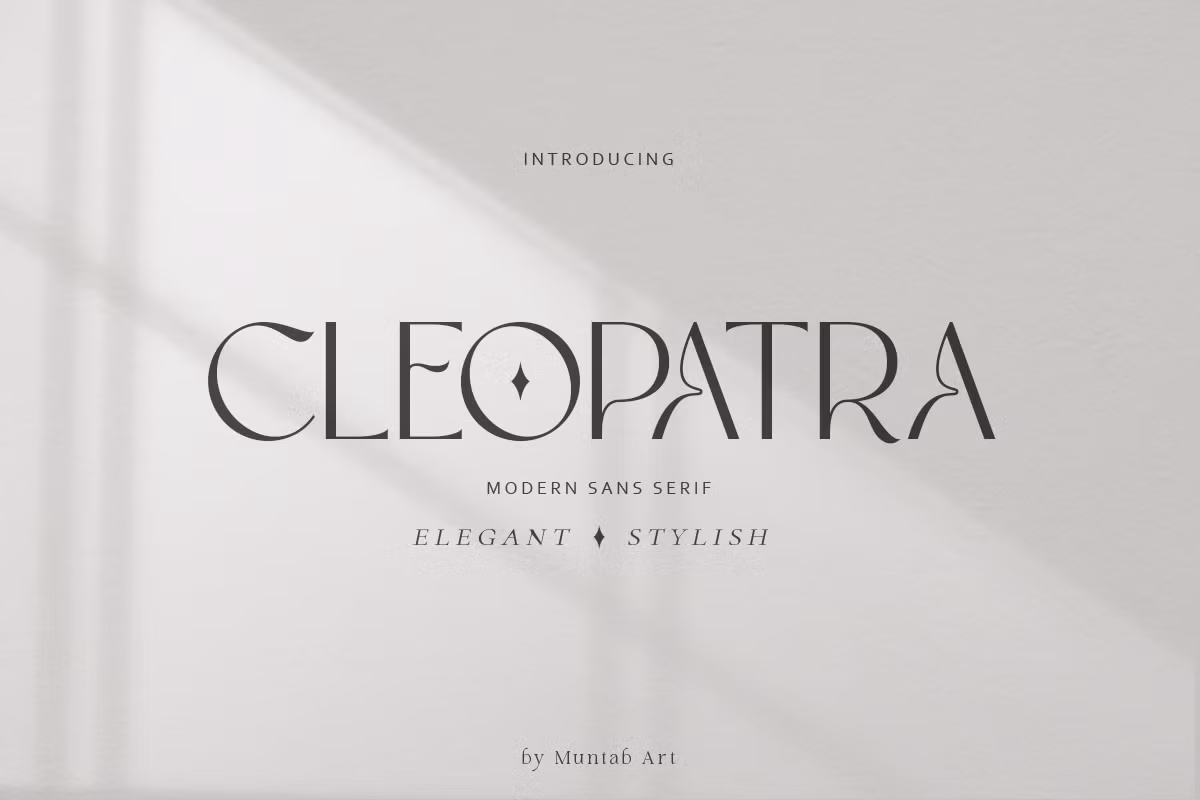
Cleopatra | Modern Sans Serif Free Download
Cleopatra is a modern sans-serif font designed to bring a stylish and contemporary touch to various design projects. It includes uppercase letters, numerals, and a wide range of punctuation, making it versatile for both print and digital applications.
• Design: A clean and modern sans-serif style suitable for posters, web design, branding, and more.
• Usage: Ideal for logo designs, magazines, social media, brochures, and other creative endeavors.